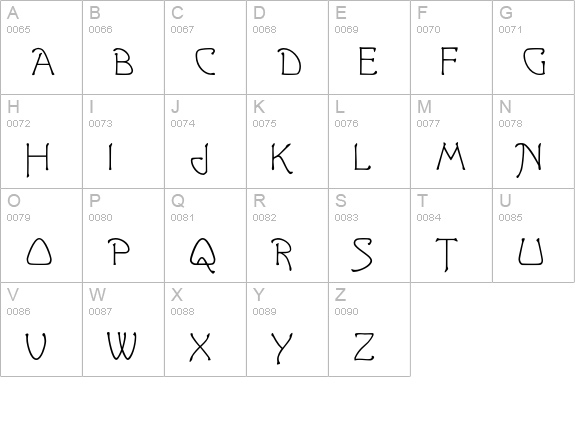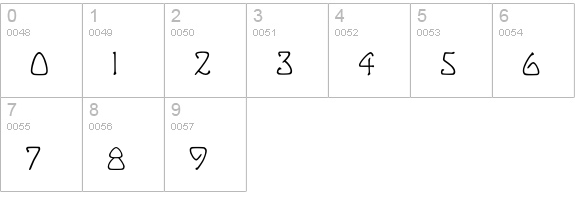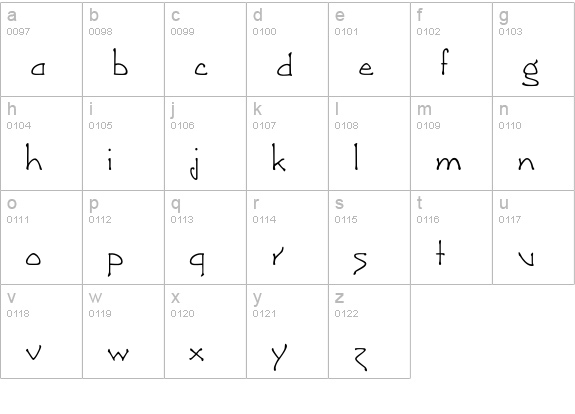
Mississippi font is a captivating and versatile typeface that exudes elegance and sophistication. With its stylish curves and unique letterforms, Mississippi font is perfect for adding a touch of sophistication to your design projects. This font is available for free and can be downloaded at FontsMarket.com, making it easily accessible for designers and creatives looking to elevate their work with a touch of class and flair. Whether you're working on branding, invitations, or any other creative project, Mississippi font is sure to make a statement and leave a lasting impression. Unlock your creativity with Mississippi font today!